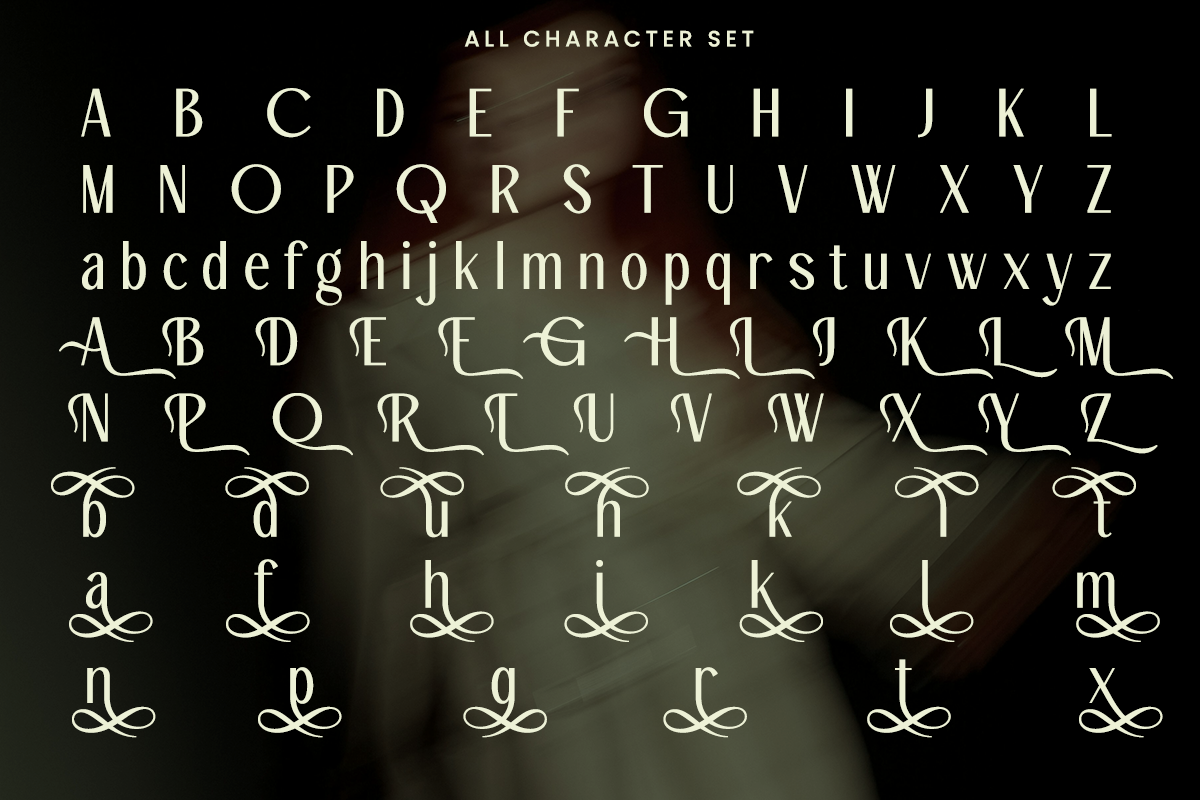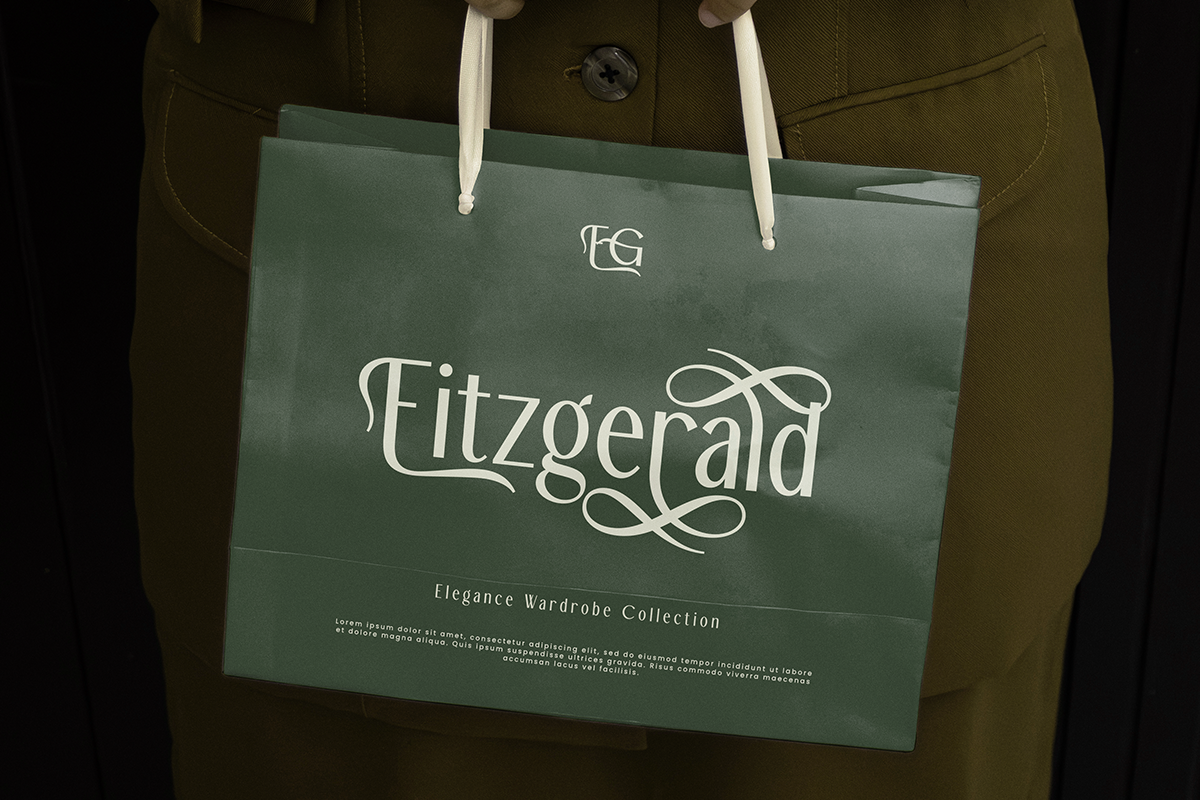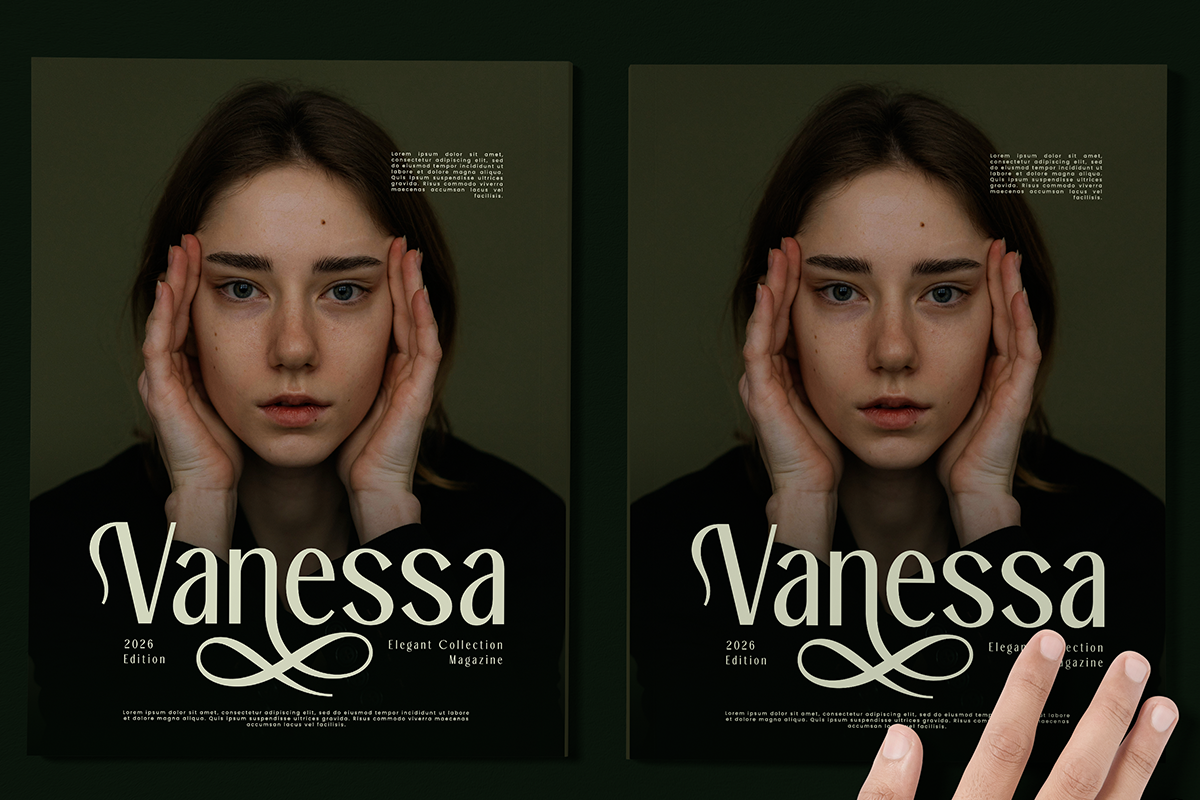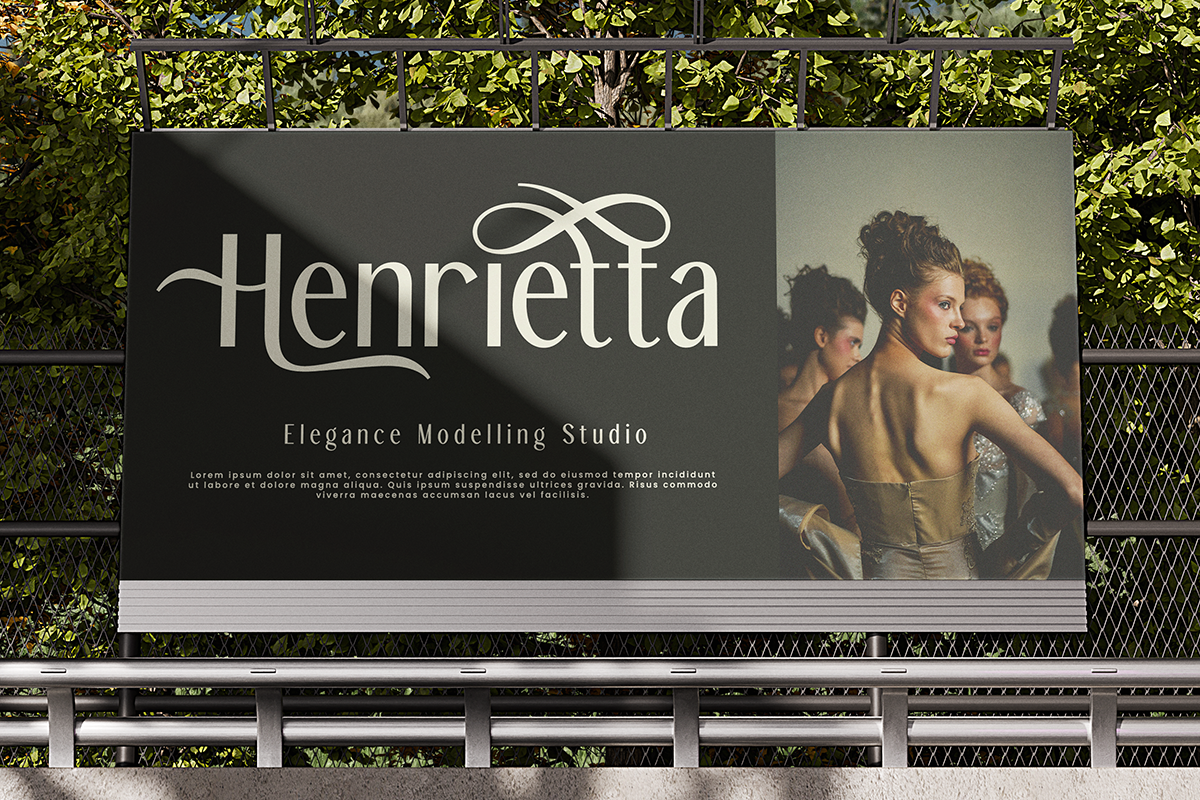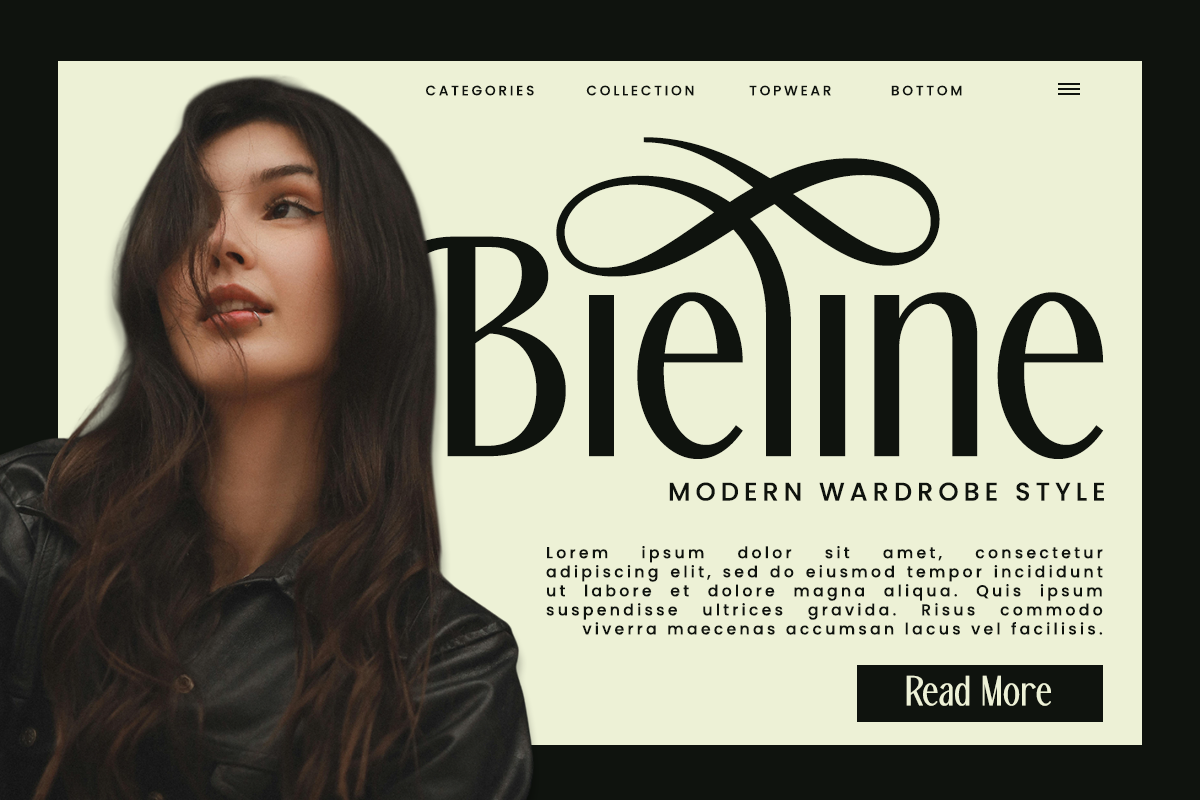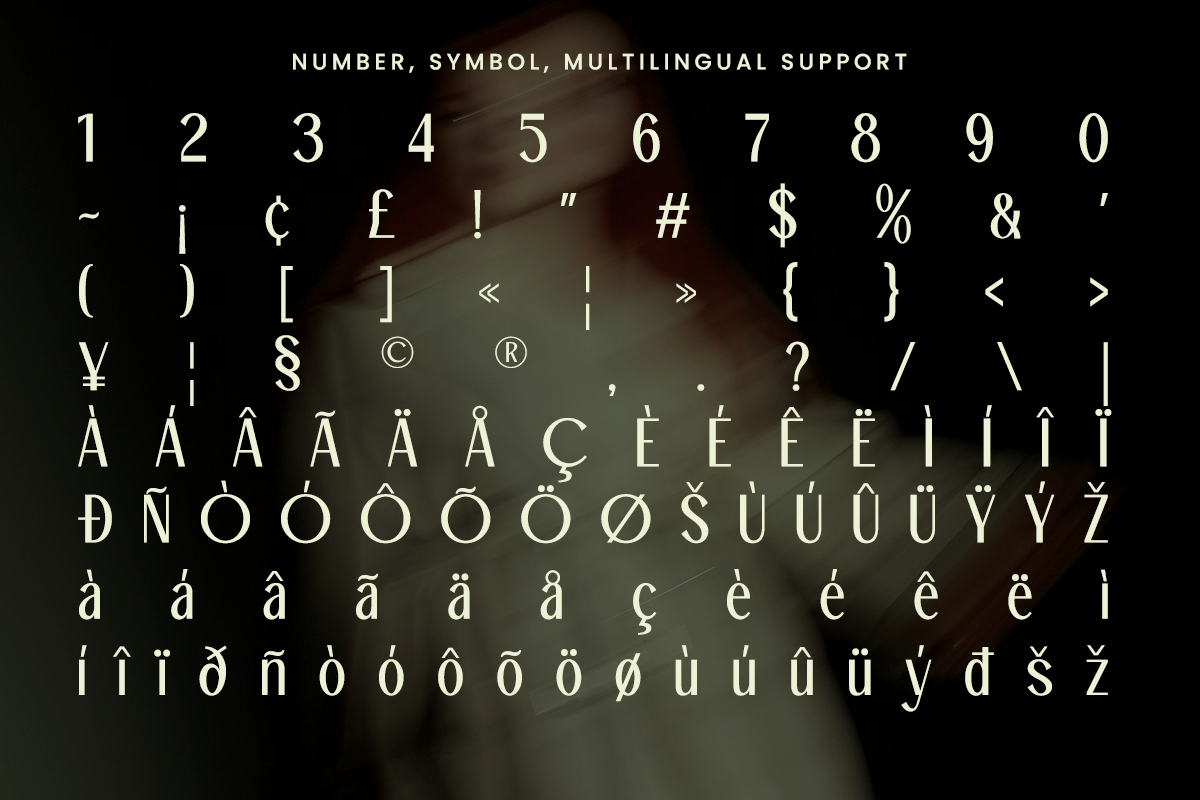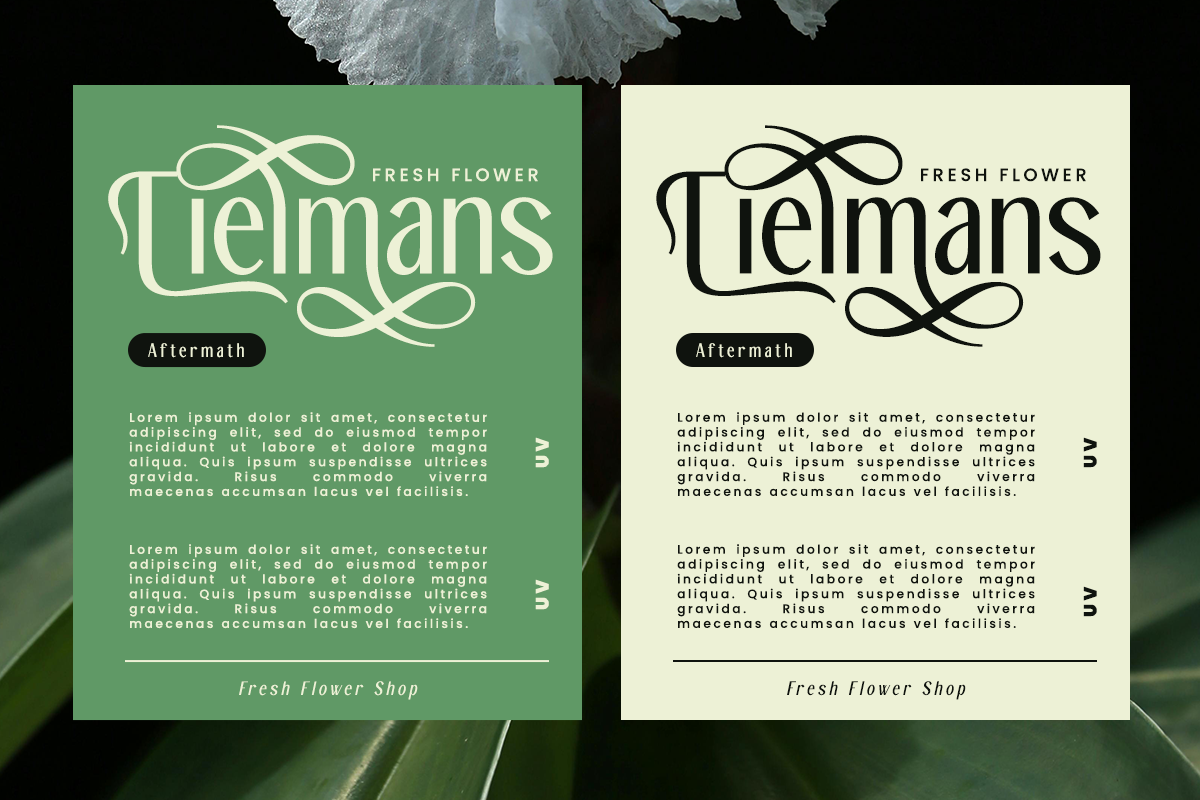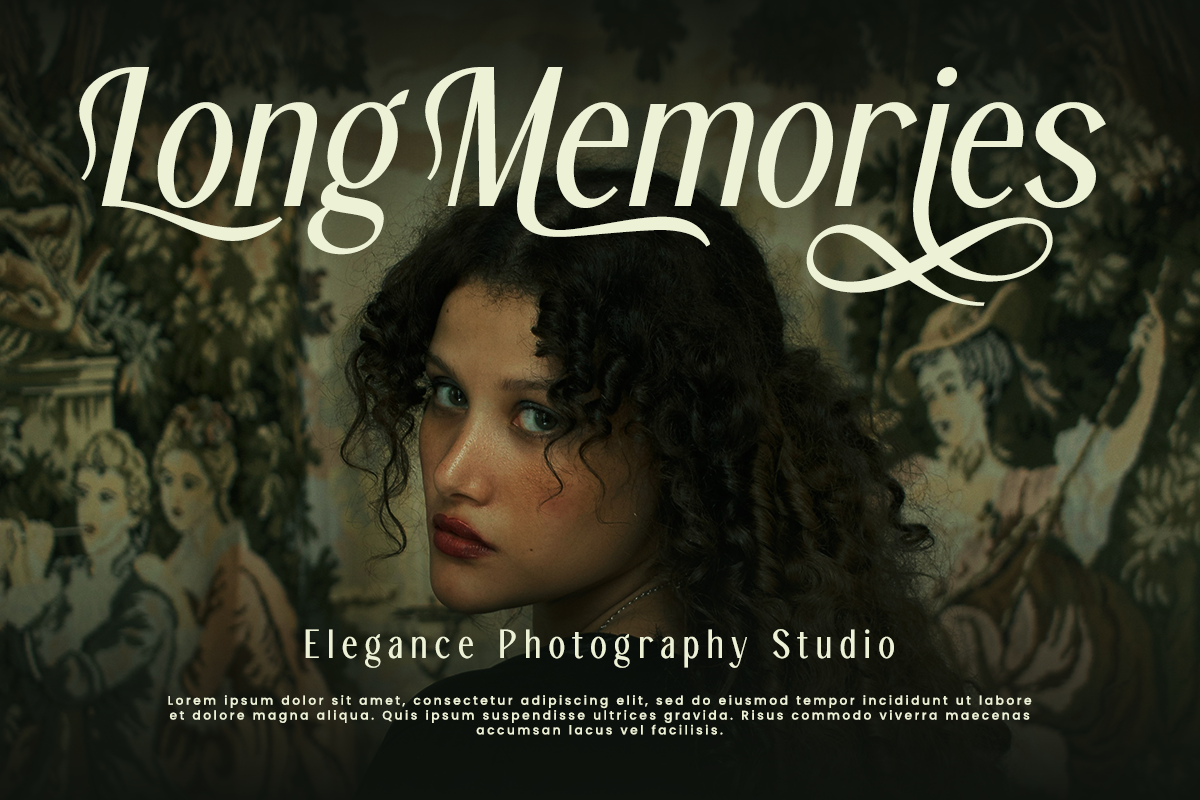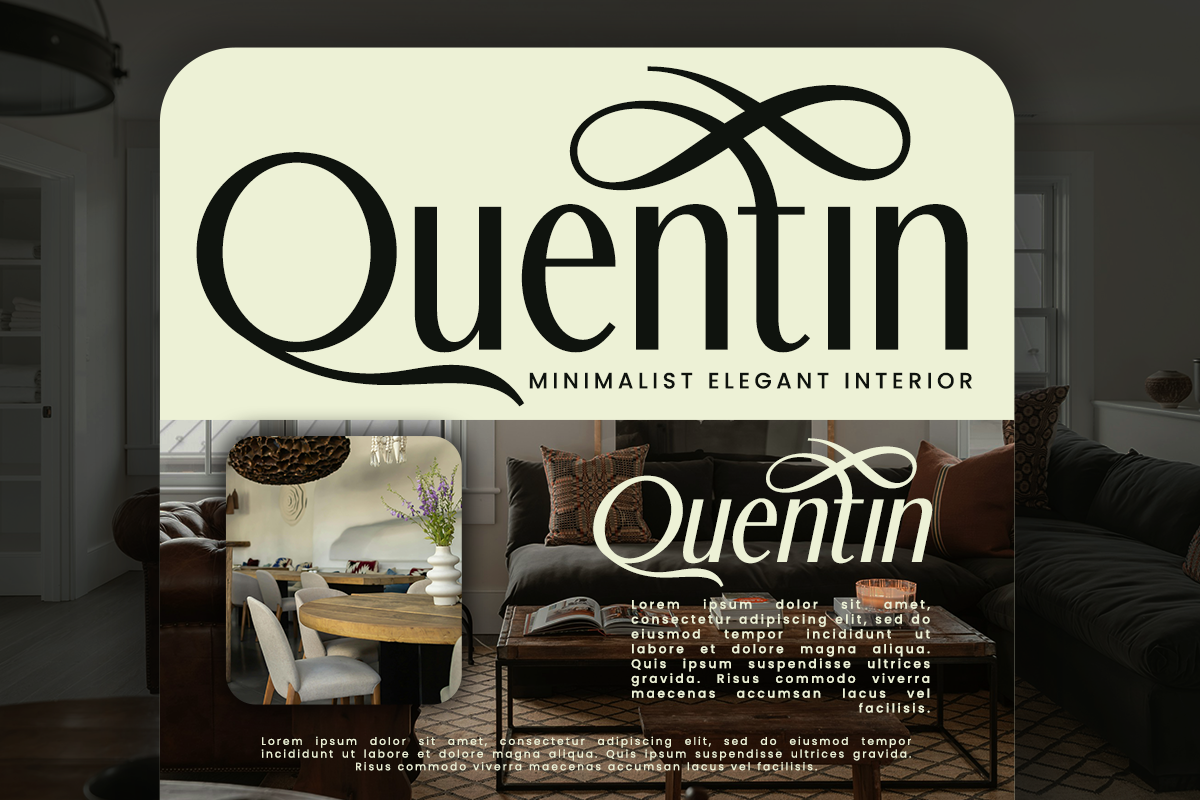
Zestiar – Elegant Condensed Sans
Zestiar is an elegant condensed sans serif typeface that blends modern sophistication with graceful personality. Designed to stand out while remaining refined, Zestiar features smooth curves, balanced proportions, and stylish ligatures that give it a distinctive, premium feel. Its condensed structure makes it perfect for impactful typography without sacrificing readability, allowing designers to create bold yet elegant visual statements. Perfect for: branding & logos, fashion editorials, luxury packaging, magazine headlines, beauty and lifestyle brands, posters, social media graphics, wedding invitations, product labels, web headers.
- Stylish Alternate ( Uppercase, & Lowercase )